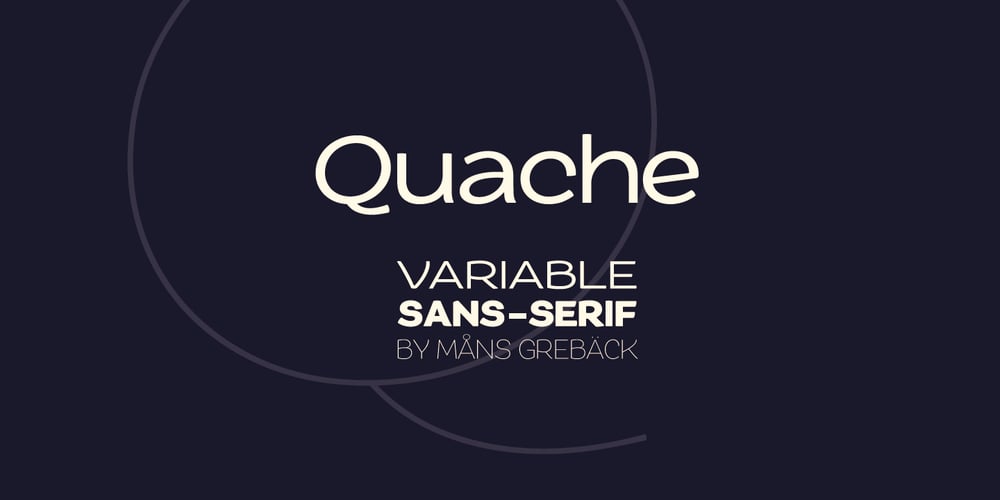
Quache Variable
Quache Variable font
Quache Variable Font Family was designed by Måns Grebäck and published by Mans Greback. Quache Variable contains 1 styles and family package options. Quache is a flexible sans-serif, created by Måns Grebäck between 2018 and 2020. It has unique, stylish curvatures and is clear, legible and sharp with open letter forms. This is a variable font. It is only one font file, but this file contains multiple styles. Use the sliders in Illustrator, Photoshop or InDesign to manually set any weight and width. This gives you not only the 28 predefined styles, but instead 1000 times 1000 options to customize the type to the exact look your project requires. It supports Latin-based languages, and contains numbers and all symbols you’ll ever need. More info about Variable Fonts: https://mansgreback.com/s/About_Variable_Fonts.pdf